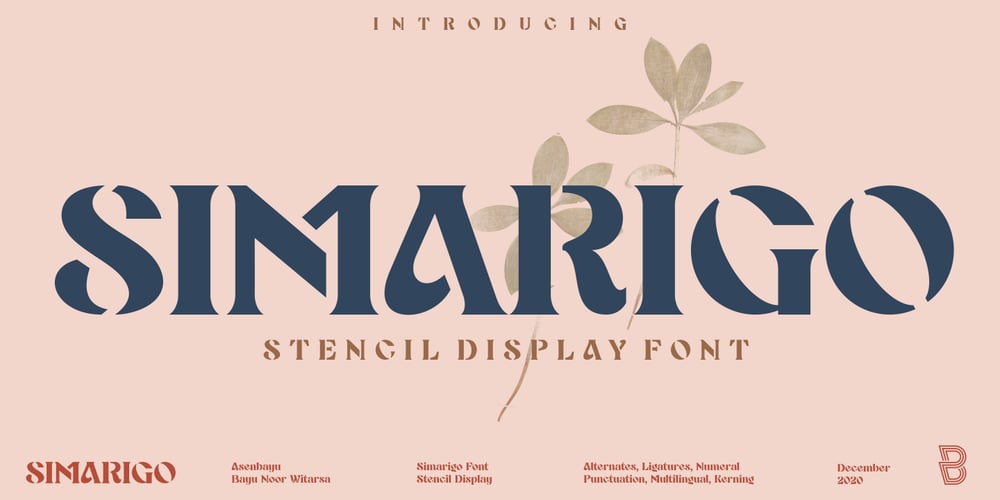
Simarigo
Simarigo font
Simarigo Font Family was designed by Bayu Noor Witarsa and published by Asenbayu. Simarigo contains 1 styles and family package options. Simarigo is a serif-stencil display font with a unique shape. Simarigo has an interesting combination of typography, crafted from serif shapes that make it elegant and luxurious, yet one of those stencils that are abstract and strong. You can use this font in modern, vintage and retro design. This font is perfect for a variety of projects, such as branding, poster displays, logo designs, magazine, headline, sticker and more.Simarigo font feature open type, kerning, ligatures, and alternative styles. Simarigo font include uppercase, lowercase, numbers, punctuation and multilingual support.